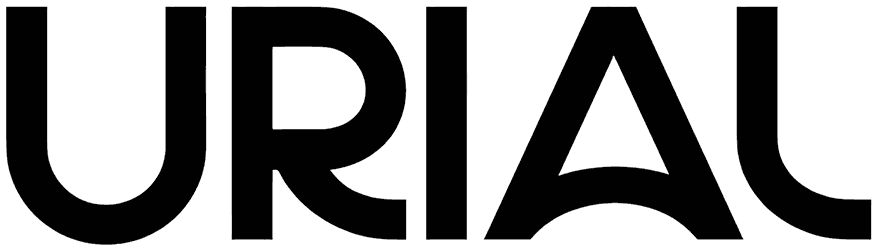
Urial Font
Since Urial provides three distinctive weights for graphic artists, they have this golden opportunity to add a bit of variety to their visual content. This modern sans serif comes with curved and well-rounded characters, so it has the real potential to add a sense of dynamic, futuristic, and creativity to all of your artwork including headlines, presentations, merchandise, or social media posts.